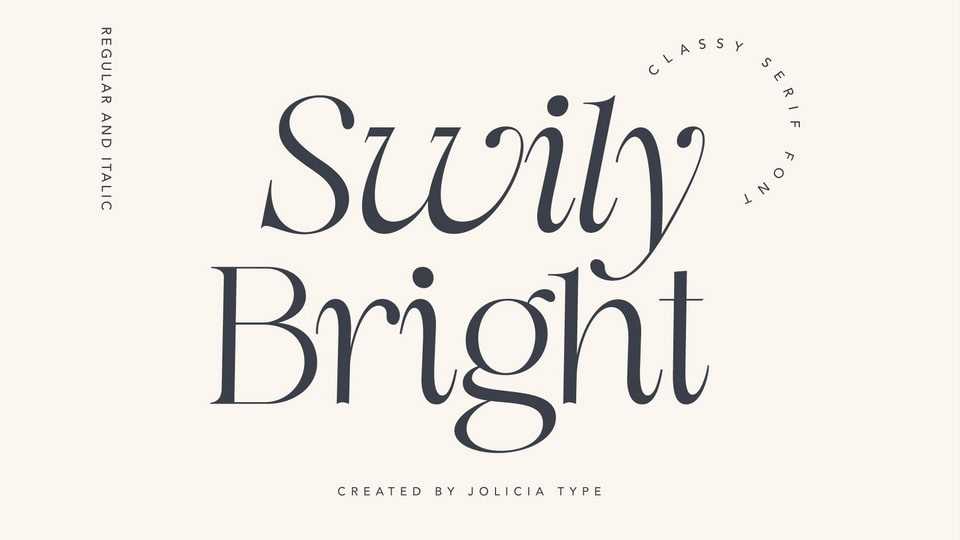
Download Swily Bright font, a trendy, classy ant modern style serif typeface for your fancy projects. Elegant, fashion and classic style on Swily Bright font will be great for any branding project.